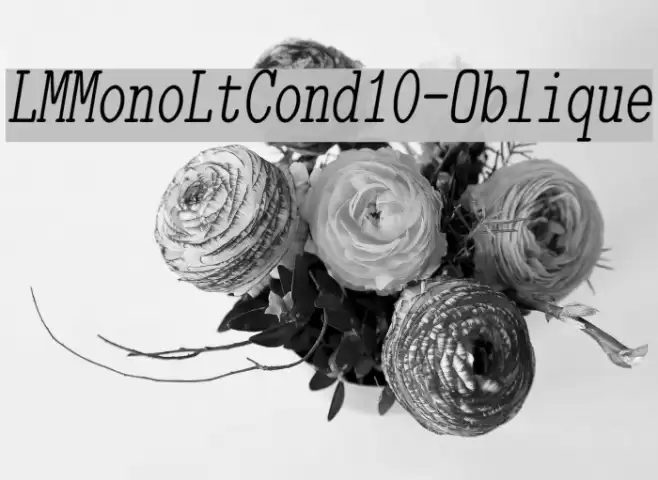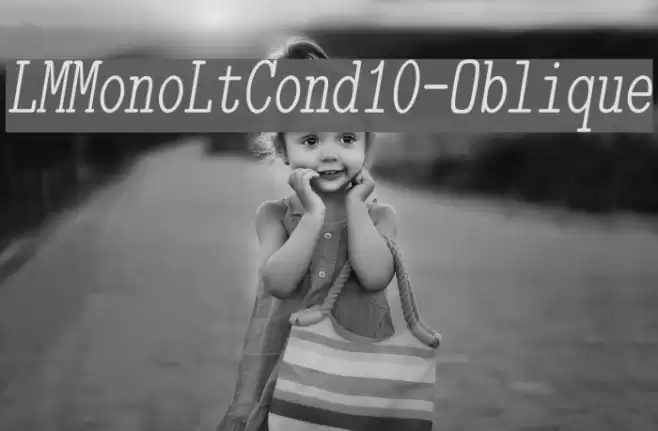
LMMonoLtCond10-Oblique Font
LMMonoLtCond10-Oblique Description
This font features a monospaced design with a light weight and condensed width. The characters are oblique, giving them a slight slant that adds a dynamic feel while maintaining readability. The strokes are consistent in thickness, providing a uniform appearance across all characters. The font includes a full set of uppercase and lowercase letters, numerals, and a variety of special characters, making it versatile for different uses. Its clean and structured form is ideal for technical documents or coding environments where clarity and precision are paramount.
A light, condensed, oblique monospaced font ideal for technical use from Uncategorized fonts.
- Proposed Projects: Perfect for coding, technical documentation, and any project requiring a clear, structured typeface.
- Use Case: Technical documents, Coding, Data tables